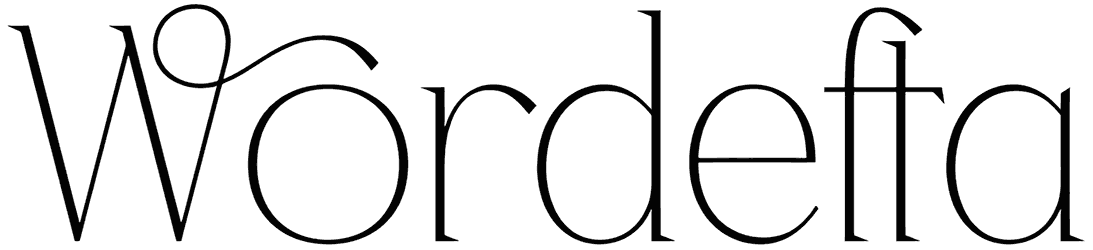
Wordefta Font
Let us introduce you to Wordefta, a well-known yoga font recommended by Resource Boy designers that can be put to great use for its straightforward approach and super stylish looks. If its lightweight characters make you doubt whether it’s good enough for branding purposes, you’re going to be blown away.
Wordefta and any other of our feminine fonts have the potential to wow you with their splendid outputs as silverware logos, art class business cards, fancy restaurant menus, and more.